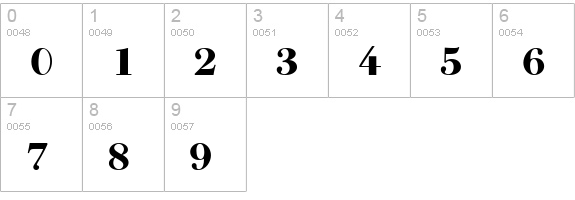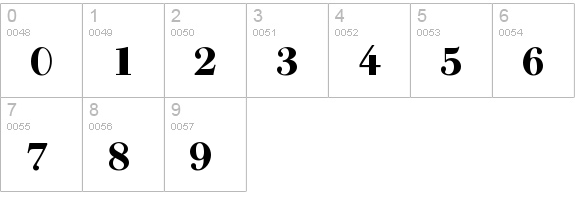
Bodoni Old Face BE Bold Font Details
Bodoni Old Face BE Bold is a strong, high-contrast variant in the Bodoni typeface family \xE2\x80\x94 well suited to headlines, attention-grabbing titles, and strong calls-to-action.
Bodoni Old Face BE Bold is a stunning and elegant typeface that exudes sophistication and classic beauty. The bold weight of this font commands attention and adds a touch of luxury to any design project. The high contrast between thick and thin strokes creates a sense of drama and impact, making it perfect for headlines and titles. This timeless font is ideal for creating refined and stylish designs, whether for print or digital media. Its graceful serifs and clean lines give it a sense of refinement and elegance that will elevate any project. What's even better is that Bodoni Old Face BE Bold is available for free download at FontsMarket.com. So you can easily add this beautiful font to your collection without any cost. Don't miss out on the opportunity to enhance your designs with this exquisite typeface.